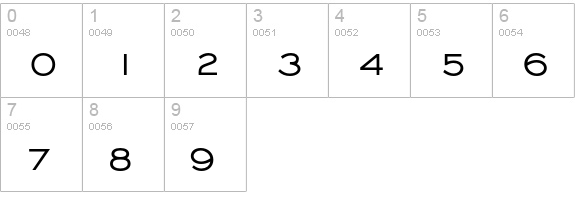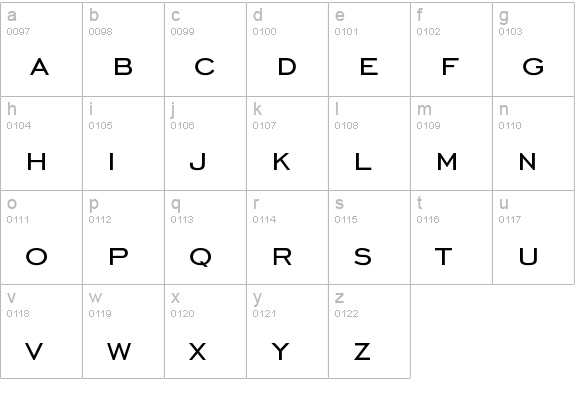
Engravers' Gothic is a classic and elegant font that exudes sophistication and professionalism. With its clean lines and sharp angles, this typeface is perfect for conveying a sense of timeless style and refined taste. Whether you are designing a logo, creating invitations, or crafting a sleek website, Engravers' Gothic will elevate your project to new heights. The best part? Engravers' Gothic is completely free to download at FontsMarket.com. Yes, you read that right - you can access this stunning font without spending a penny. So why wait? Enhance your designs with Engravers' Gothic today and make a lasting impression on your audience.